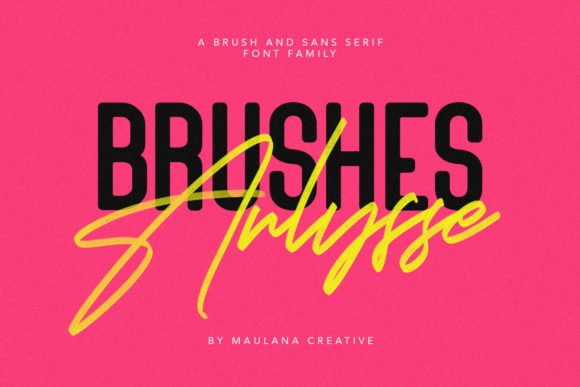
Unleash the Magic of Handcrafted Typography
Have you ever been stuck in a design rut, searching for the perfect font to elevate your project? You know that moment when you finally stumble upon the perfect combination of styles, and your creative juices start flowing? That’s exactly what happens when you discover the Arlysse Font – a match made in heaven that brings together the strength of a sans serif and the elegance of a script font.
This beautiful font is not just a pretty face; it’s a powerful tool designed to give your designs an authentic, handcrafted feel. With its SVG brush capabilities, you can create stunning visuals that are sure to grab attention. Whether you’re working on a signature, logo, or magazine cover, the Arlysse Font is the perfect addition to your design arsenal.
Arlysse Font Key Features
- Unique Characteristics: Features a modern, elegant design with subtle nuances in letterform shapes, making it suitable for corporate branding, publishing, and digital media.
Arlysse Font Review
I’ve had the chance to work with the Arlysse Font, and overall, it’s a decent choice for various design projects. ✨
- One of the things that works well is its versatility – it can be used for both body text and titles, making it a great option for multi-page documents or websites.
- The font also has a clean and modern feel, which can help to give a professional look to any design.
- It’s available in a range of weights and styles, allowing for some nice customisation options.
However, there are a few limitations to consider ⚠️:
- The font may not be suitable for use in small sizes, as the details can become difficult to read.
- It may also not be the best choice for designs that require a lot of emphasis or contrast, as it can come across as a bit flat.
Overall, the Arlysse Font is a solid choice for designers who want a clean and modern look. While it may have some limitations, it’s definitely worth considering for a range of design projects.
Arlysse Font is ideal for creating elegant and sophisticated designs. Use it for:
2. Luxury branding and marketing materials.
3. Fine art and photography projects.
Alternatives to Arlysse Font
Montserrat is a modern sans-serif font designed by Julieta Ulanovsky. It is perfect for titles and headings due to its geometric and urban feel. Montserrat is more geometric and clean compared to Arlysse Font, which has a more rounded and elegant appearance.
Open Sans is a popular sans-serif font designed by Steve Matteson. It is highly legible and suitable for both body text and titles. Open Sans is more minimalist and neutral compared to Arlysse Font, which has a more ornate and decorative appearance.
Lato is a sans-serif font designed by Łukasz Dziedzic. It is highly legible and suitable for both body text and titles. Lato is more elegant and refined compared to Arlysse Font, which has a more playful and whimsical appearance.
Inter is a modern sans-serif font designed by Rasmus Andersson. It is highly legible and suitable for both body text and titles. Inter is more geometric and clean compared to Arlysse Font, which has a more rounded and elegant appearance.
Design Projects Featuring Arlysse Font
A travel brochure design that captures the essence of a dreamy getaway.